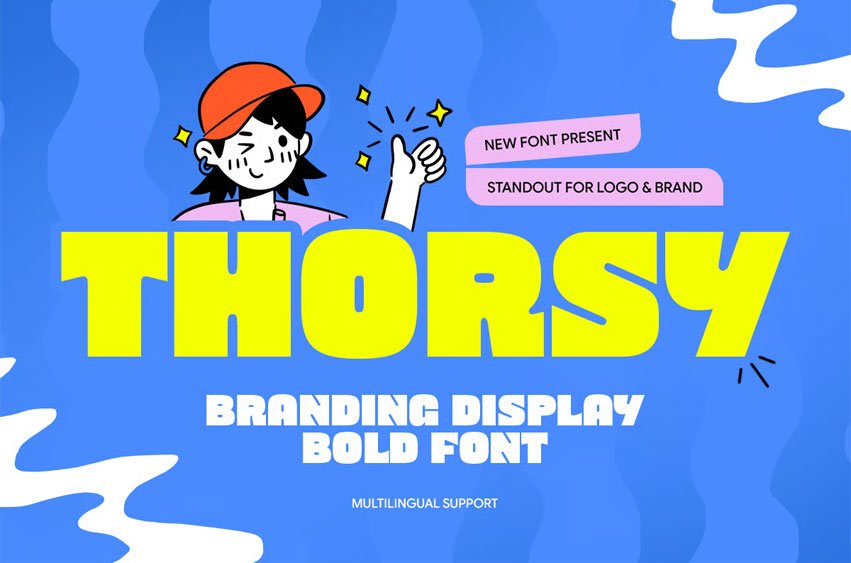
Thorsy Font
Thorsy Font Branding Display Bold Font Thorsy is a bold display font designed to create strong, confident, and eye-catching branding. With its thick letterforms, modern structure, and impactful visual style, Thorsy is perfect for logos, headlines, posters, packaging, and standout branding projects.
Crafted to deliver maximum visual impact, Thorsy combines boldness with clarity, ensuring excellent readability while maintaining a powerful and modern character. Its versatile design makes it ideal for brands, advertising campaigns, unique food branding, product packaging, and designers looking for a strong display font that commands attention.
Thorsy – Branding Display Bold Font Features:
• Bold display style with strong visual presence
• Ideal for logos, headlines, posters, and packaging
• Thick letterforms with modern structure
• Perfect for branding, advertising, and high-impact designs
Make your designs stand out with Thorsy – the bold display font built for powerful branding.